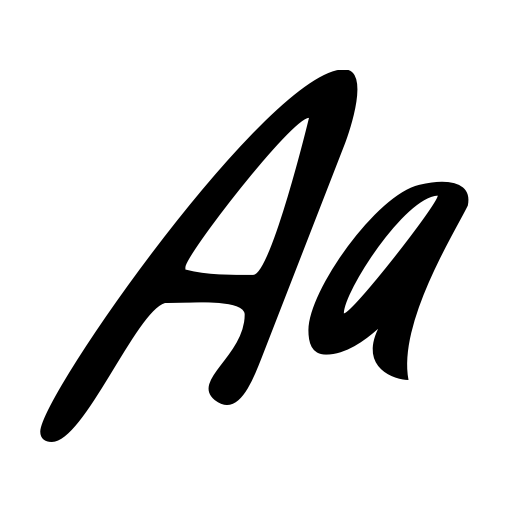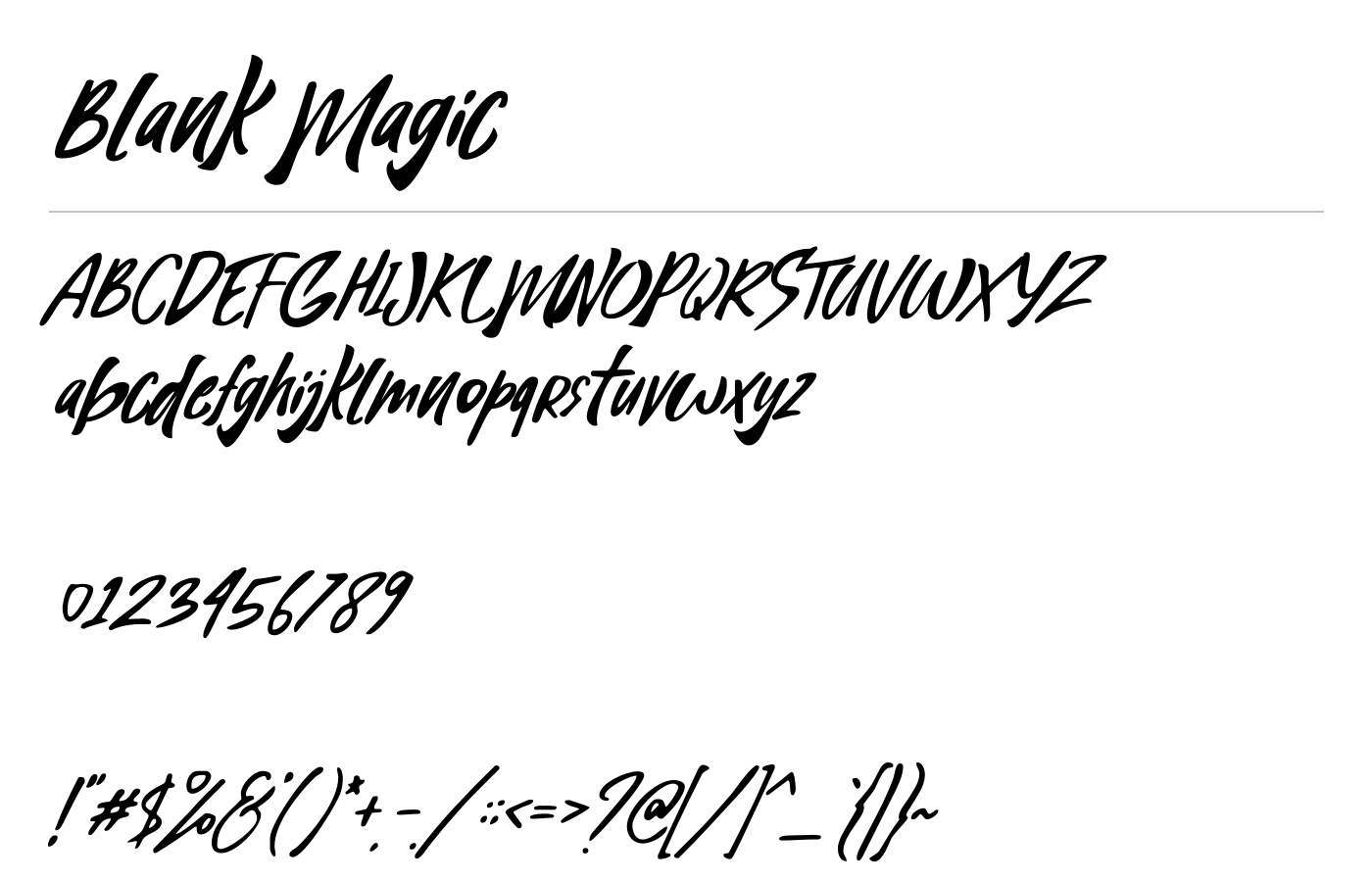
Blank Magic is a lively and bold script font that features fluid, brush-like strokes with a dynamic, hand-painted feel. Its slightly condensed letterforms and strong contrast between thick and thin lines give it an energetic, modern personality, making it ideal for creative branding, eye-catching headlines, and playful designs that need a touch of expressive flair.
Blank Magic Font
About Blank Magic Font
| Font family | Blank Magic Font |
| Designer | Muhammad Sirojuddin |